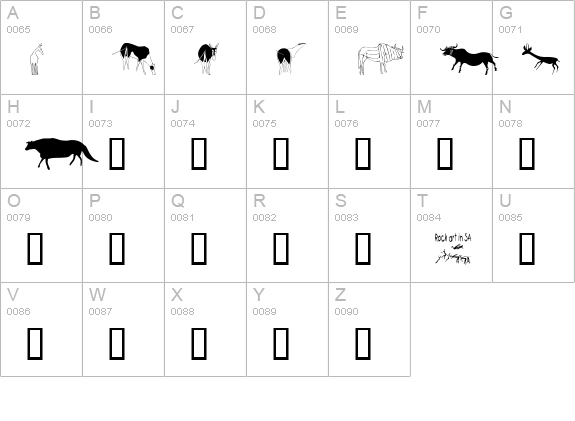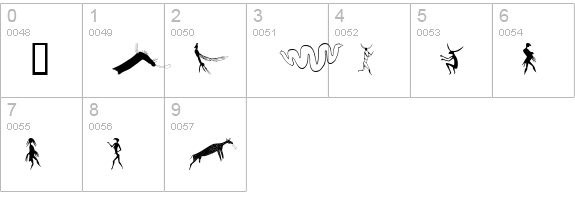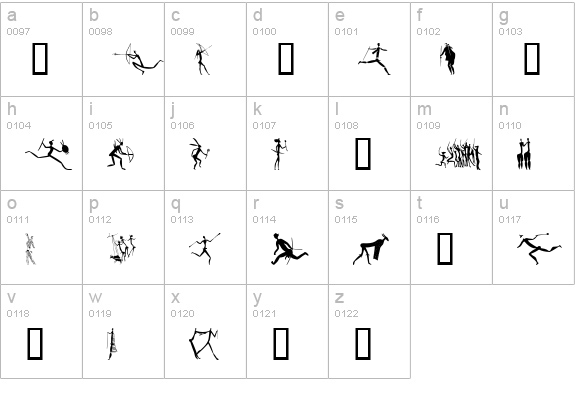
SL Rock Art Font Details
Introducing SL Rock Art, a captivating and mesmerizing font that effortlessly captures the essence of ancient rock art. This one-of-a-kind typeface is a tribute to the rich cultural heritage of our ancestors, bringing a touch of history and intrigue to any design project. SL Rock Art is a bold and distinctive font, inspired by the intricate and enigmatic symbols found in rock carvings and cave paintings. Every stroke and curve of this font evokes a sense of mystery, inviting the reader to embark on a journey through time and explore the hidden stories engraved in stone. More than just a font, SL Rock Art is a powerful tool for designers, artists, and enthusiasts alike. Its versatility allows it to be used in a wide range of creative projects, from branding and logos to posters, album covers, and beyond. With its unique and evocative style, SL Rock Art is sure to make a lasting impression and add a touch of ancient wisdom to any design. And the best part? SL Rock Art is available for free! You read that right – this extraordinary font can be freely downloaded at FontsMarket.com. Now, you can unleash your creativity without any limitations, as SL Rock Art opens up a world of possibilities for your artistic endeavors. So, whether you're a history aficionado, a lover of captivating design, or simply someone seeking to add a touch of intrigue to your next project, SL Rock Art is the perfect choice. Download it today from FontsMarket.com and let the ancient symbols guide you on a journey of creativity and inspiration.